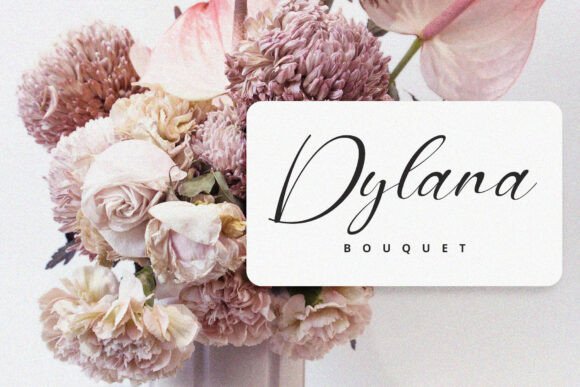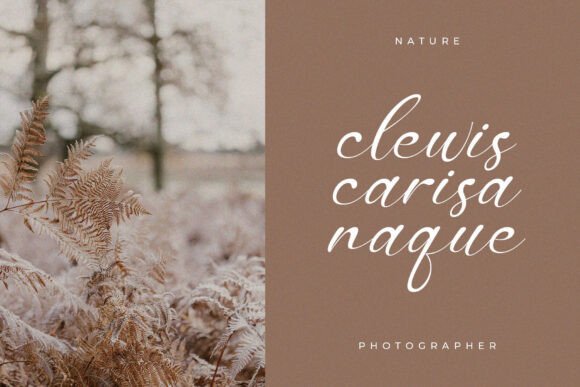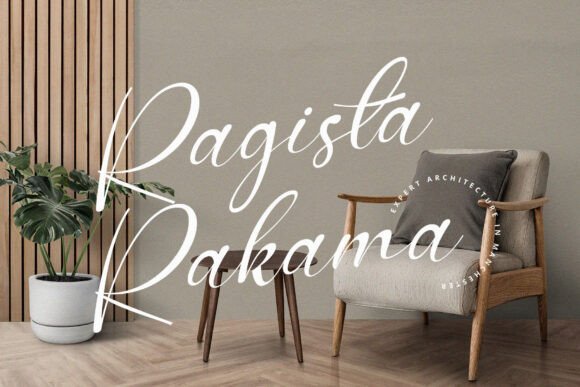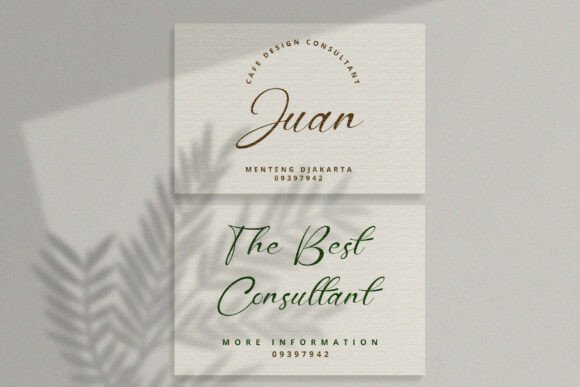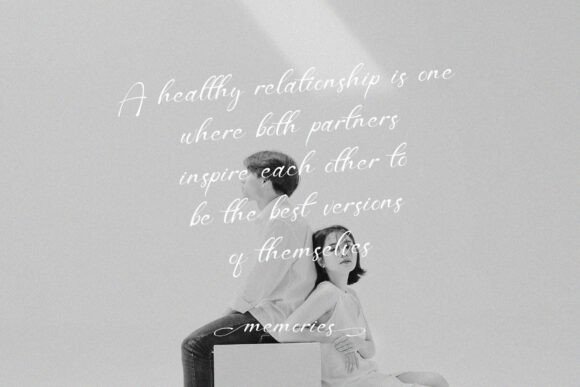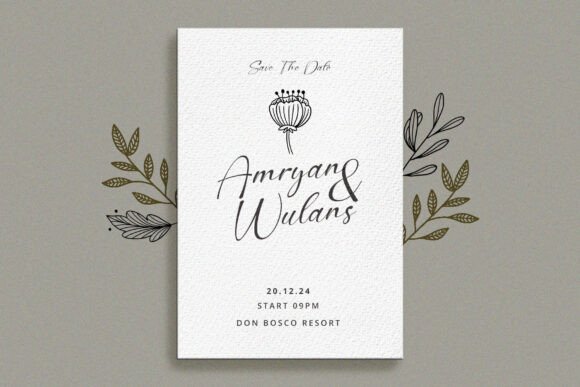
Introduction to Selonika Font
Introducing the new Selonika Script Font, an elegant and stylish handwritten script that you can use to perfect your design.
You will get a full set of lowercase and uppercase letters, multilingual, numerals, and punctuation .
Key Features of Selonika Font
Why Choose Selonika Font?
Selonika Font offers exceptional quality and versatility, making it a valuable addition to your design toolkit. Whether you’re creating for personal projects or commercial use, Selonika Font delivers professional results.